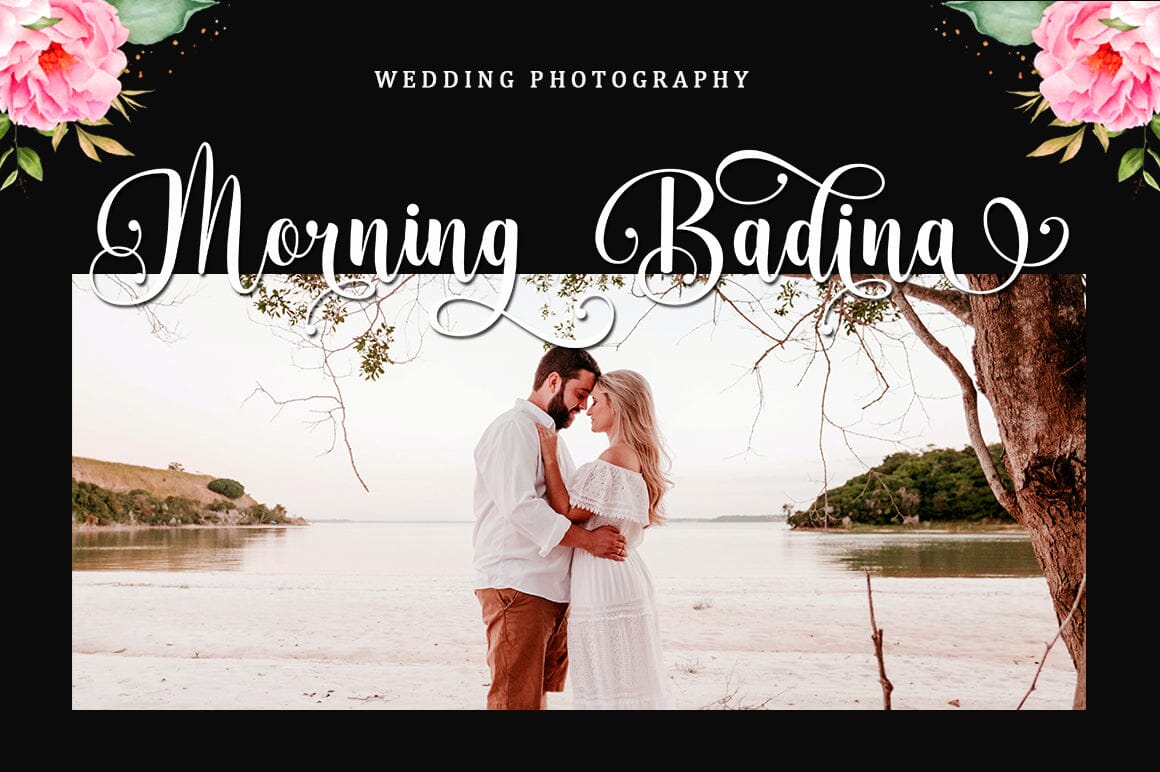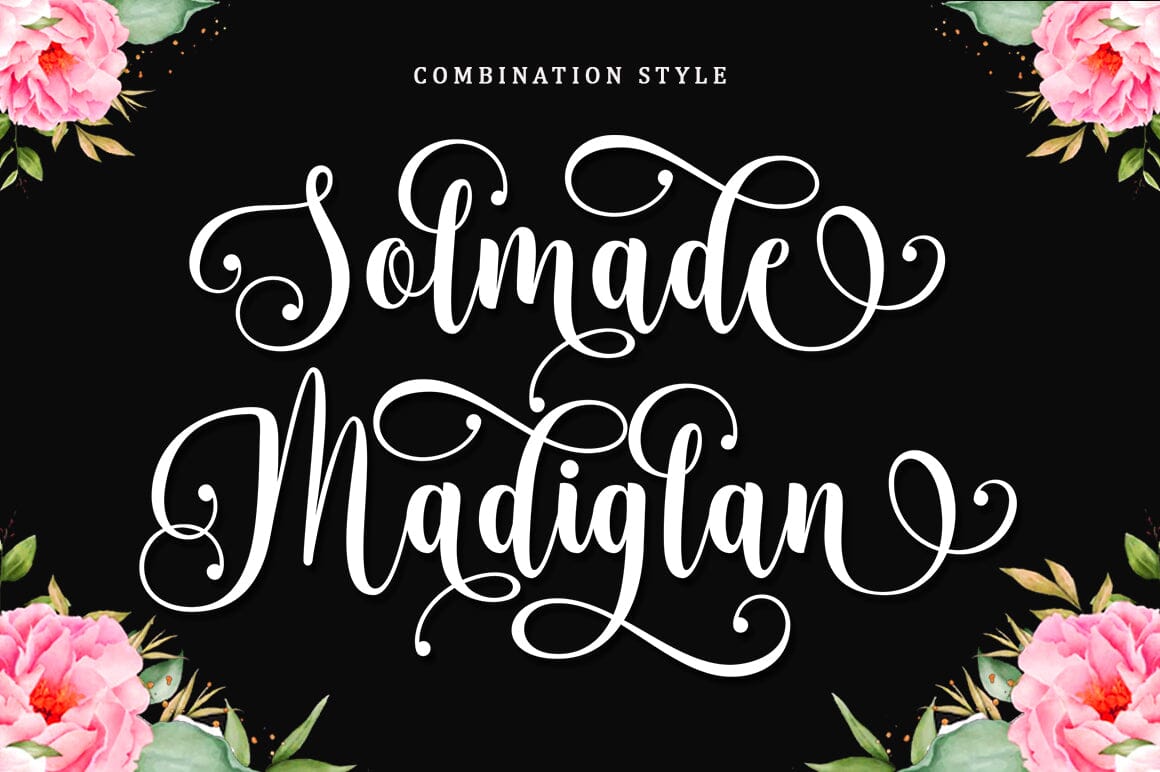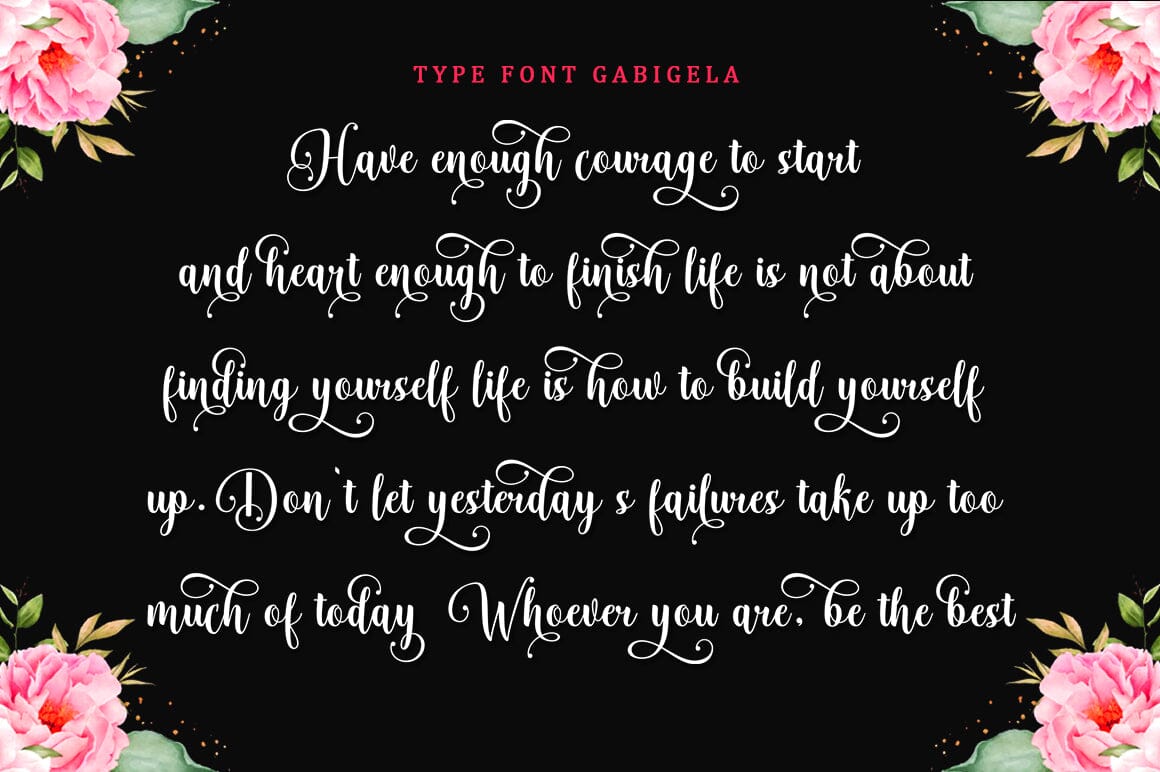
Gabigela Script Font – Free Elegant Handwritten Typeface
The Gabigela Script font is a beautifully crafted handwritten typeface that blends elegance, femininity, and versatility. Designed to bring sophistication and flair to every letter, this font is perfect for projects that demand a refined yet personal touch. With its sleek curves and clean structure, Gabigela is a must-have for designers seeking both beauty and functionality.
Stylish and Luxurious Letterforms
Gabigela stands out with its luxurious letter connections and high readability. Its smooth strokes and polished shapes make it ideal for both formal and creative applications. From elegant wedding invitations to high-end branding, Gabigela adapts seamlessly to a variety of design needs. Its charm lies in its simplicity and the graceful motion of every glyph.
Ideal for Many Design Projects
This font shines in many contexts, including:
- Wedding Invitations: Add grace and warmth to your special event
- Product Labels: Perfect for fashion, beauty, or handmade items
- Restaurant Menus: Create a classy dining impression
- Book Covers and Magazines: Suitable for modern novels and editorial layouts
- Branding: Feminine, clean, and sensual identity design
- 2 Styles: Regular and Slant (Italic)
- Full Character Set: Uppercase, lowercase, ligatures, numbers, punctuation
- Alternates: Elegant stylistic sets for more variety
- Multilingual Support: Includes extended characters for global use
Enhance your designs with the Gabigela Script font. Its classic yet modern charm will bring elegance, readability, and personality to every project.